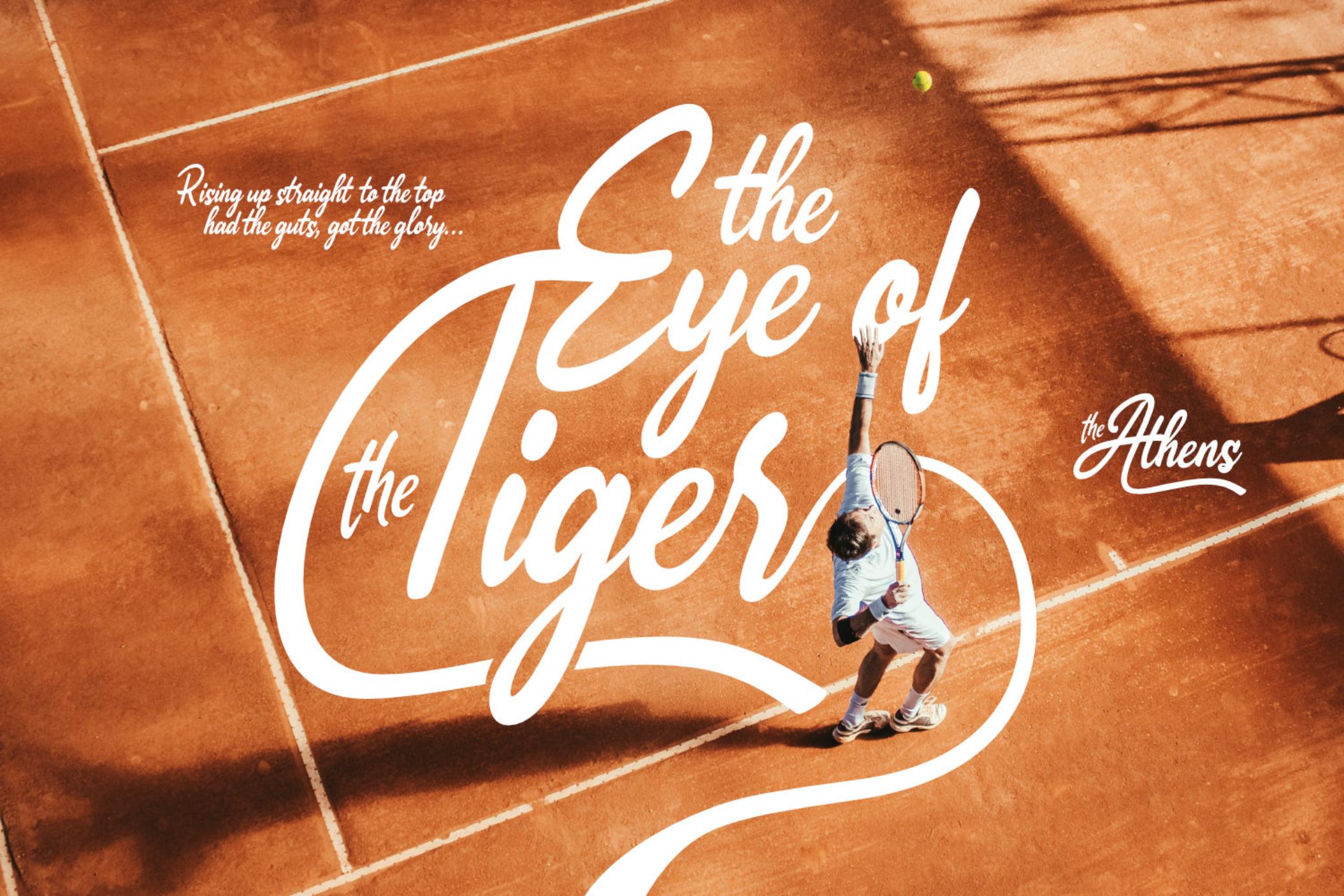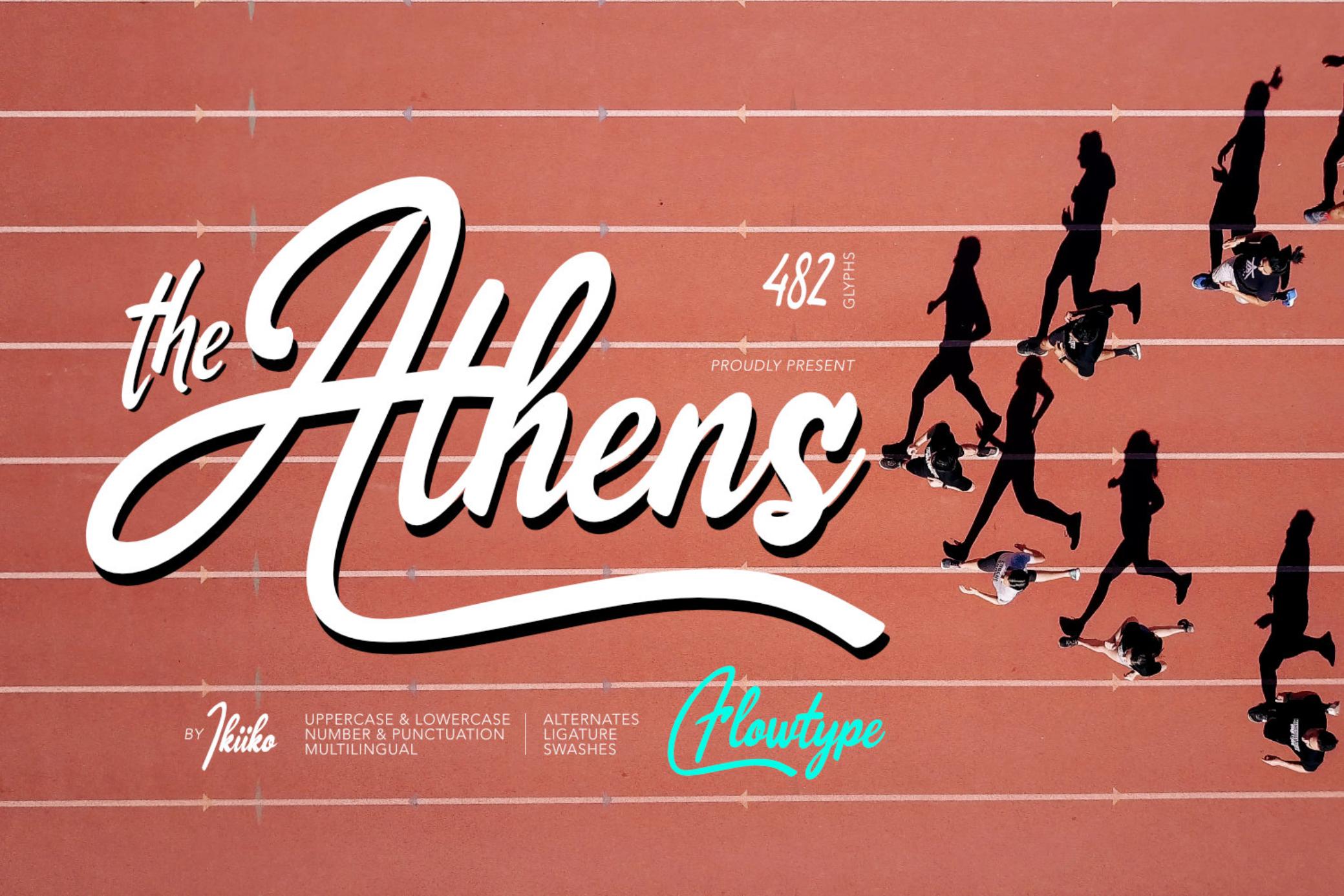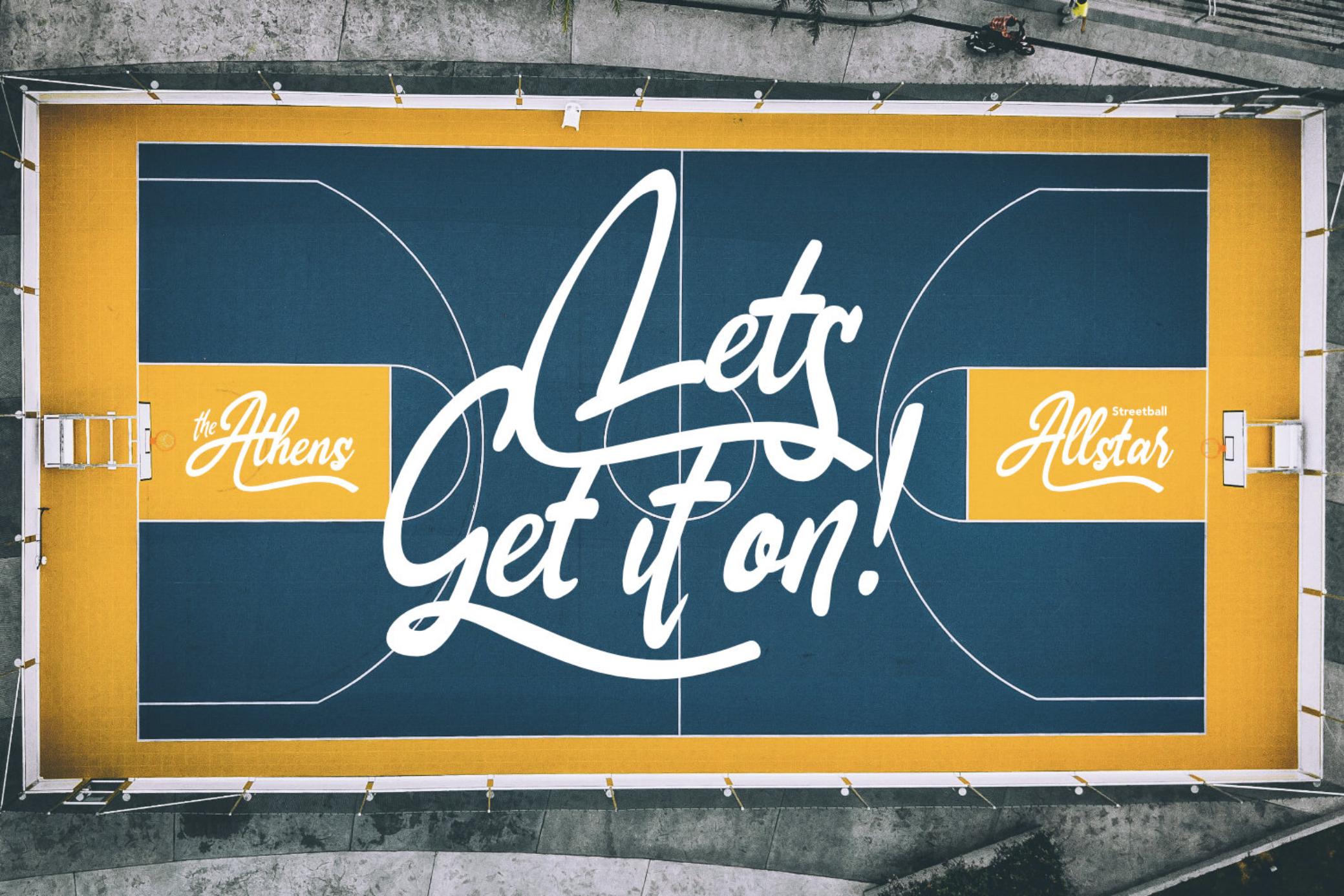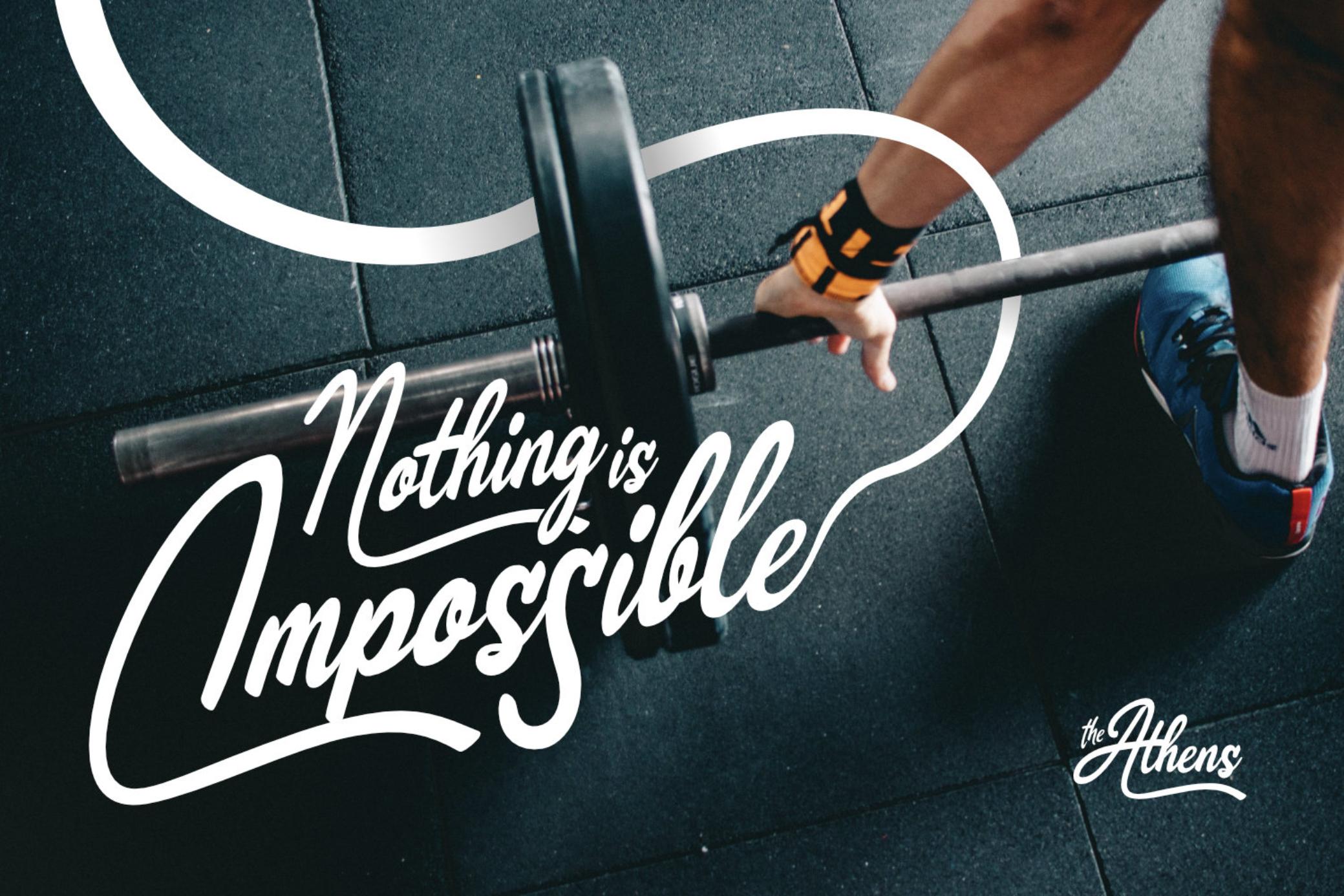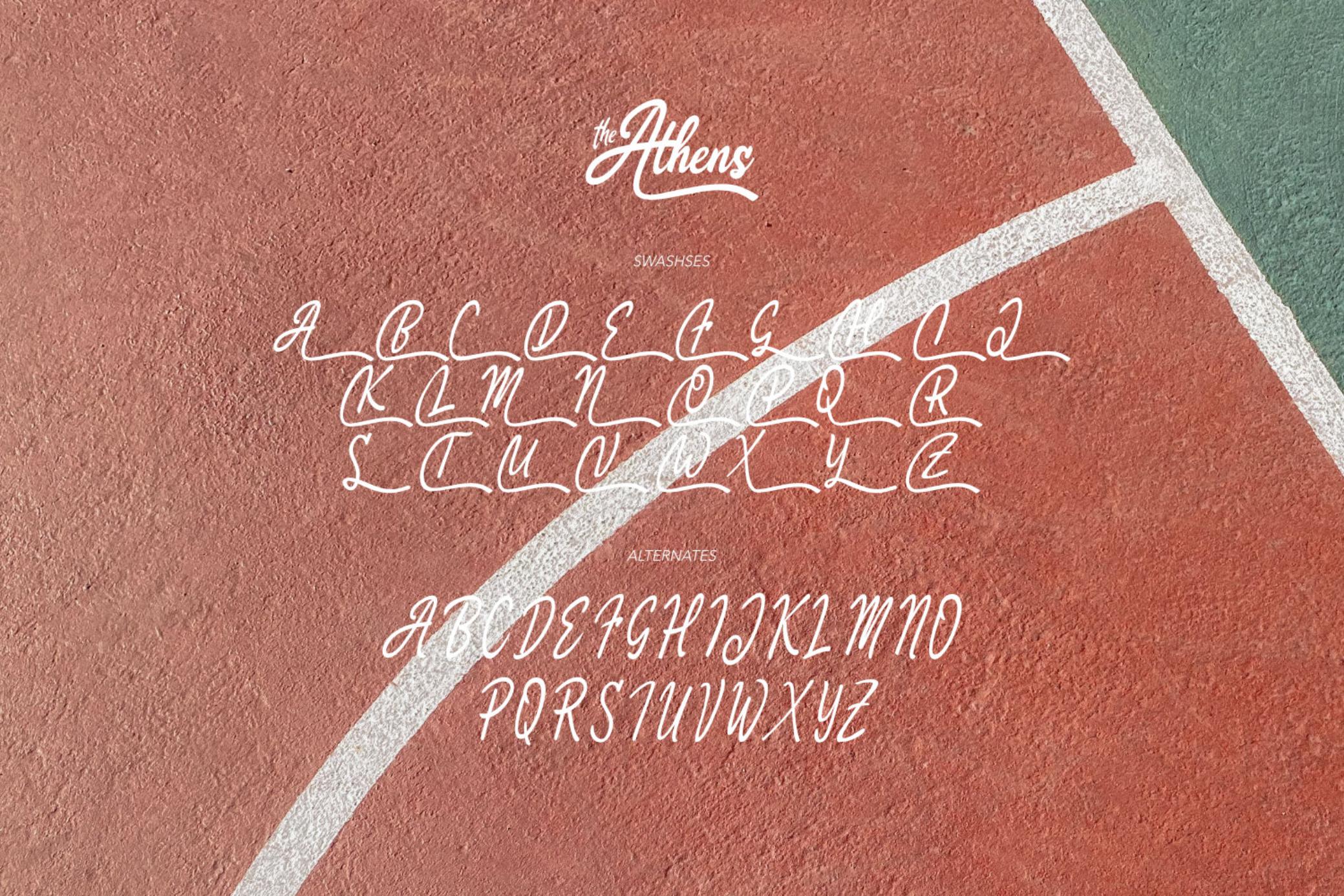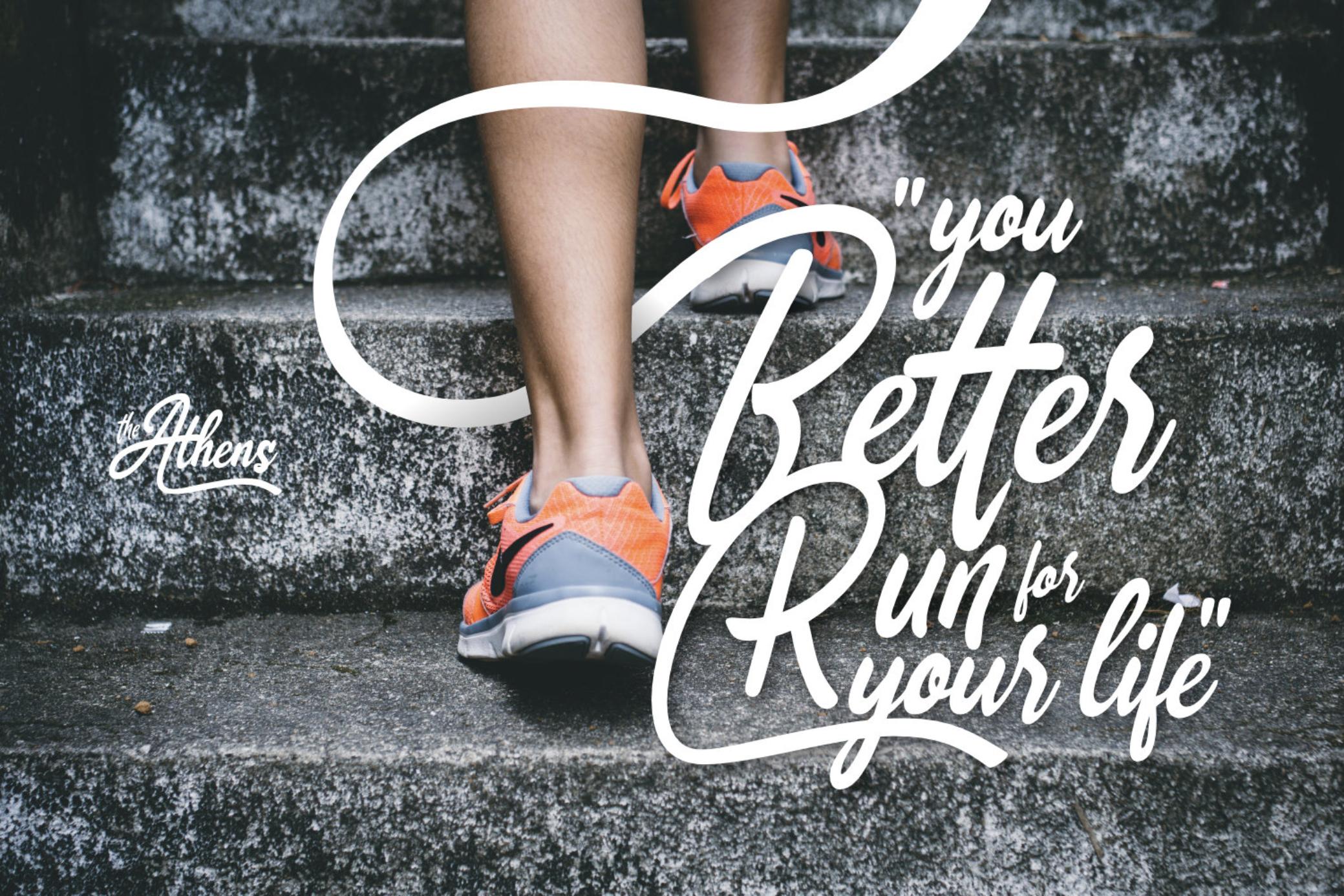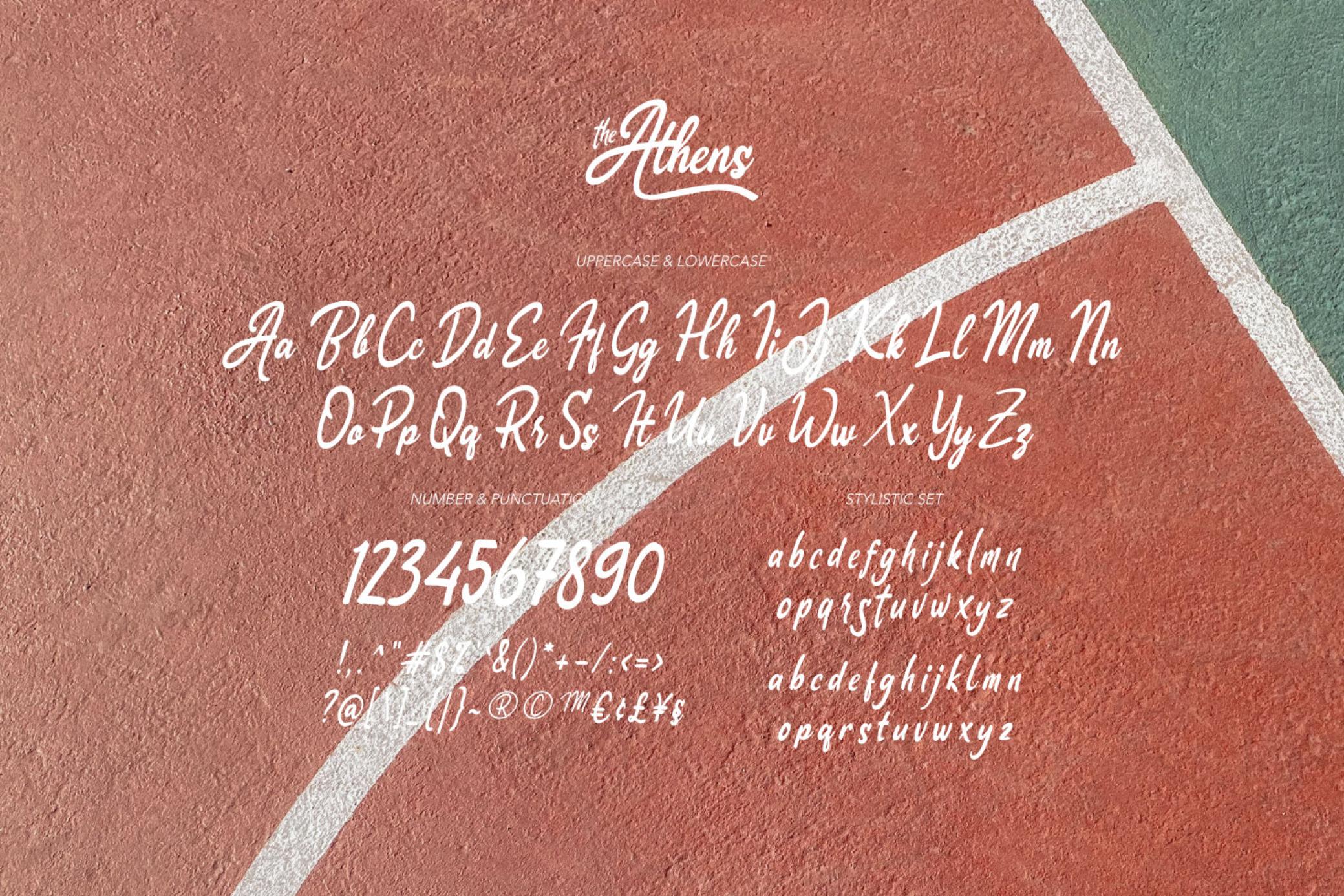
The Athens - Ribbon Font
Athens
Introducing The Athens - Ribbon Font, created by ikiiko.
The Athens is inspired by the ropes in the runner's finish line. The letters are script fonts with a flexible and wavy style. This font have a unique waveform and has a large selection of stylistic sets. This typeface is perfect for an magazine cover, flyer design, poster design, inspirational quotes, photography layout, and also good for vintage product, or simply as a stylish text overlay to any background image.
- Number & Punctuation
- Alternates & Stylistic
- Swashes